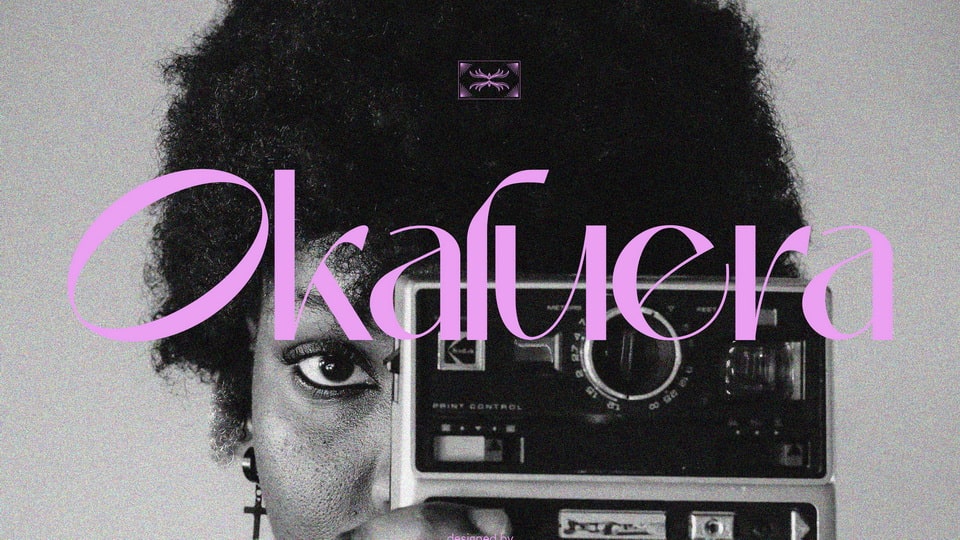
Download Okaluera font , a typeface that seamlessly blends elegance and luxury with a touch of minimalism, creating a sophisticated visual experience. Its sleek and graceful letterforms exude opulence, making it ideal for projects that demand a touch of class.